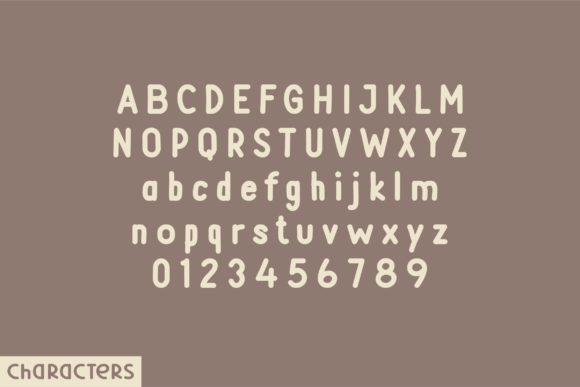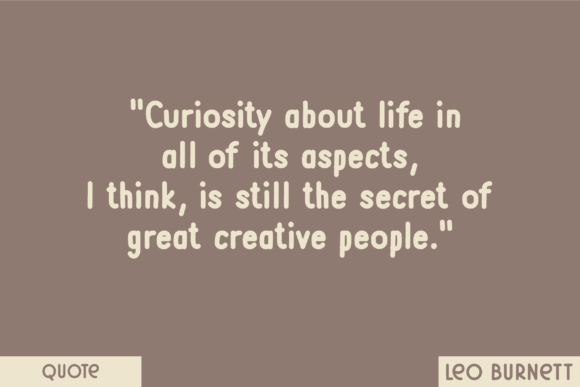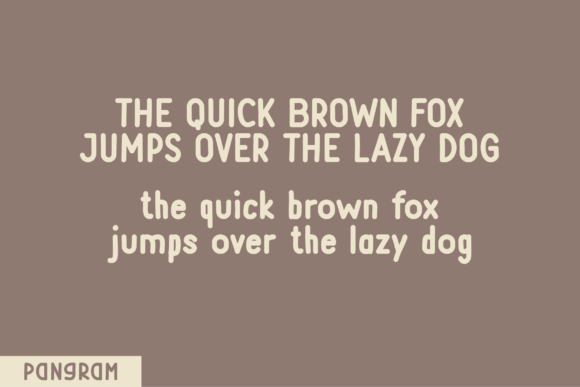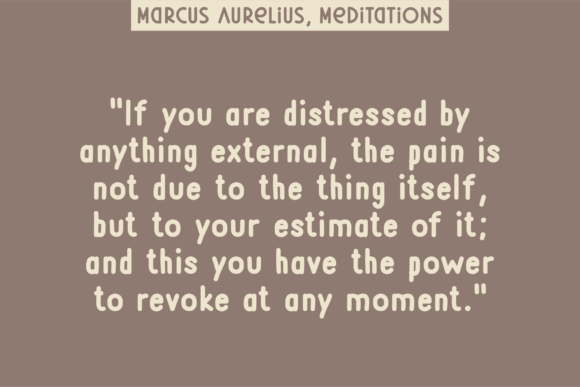
Introducing Cheeky Monkey Font: The Perfect Addition to Your Design Arsenal
Are you tired of using the same old fonts in your designs? Look no further! Cheeky Monkey Font is a bold and unique sans serif font that’s perfect for adding a classic touch to your quotes, notes, tees, logos, social media, and any other design that needs a bit of personality.
What is Cheeky Monkey Font?
Cheeky Monkey Font is a modern sans serif font that’s designed to make a statement. Its bold and unique style is perfect for designers and crafters who want to add a bit of whimsy to their work. The font is clean, crisp, and highly legible, making it perfect for use in a variety of design applications.
Key Features of Cheeky Monkey Font
- Bold and Unique Style: Cheeky Monkey Font has a bold and unique style that’s perfect for making a statement.
- Clean and Crisp Design: The font has a clean and crisp design that’s highly legible, even at small sizes.
- Sans Serif Style: Cheeky Monkey Font is a sans serif font, making it perfect for use in modern designs.
- Highly Versatile: The font is highly versatile and can be used in a variety of design applications, from quotes and notes to tees and logos.
Cheeky Monkey Font is perfect for designers and crafters who want to add a bit of personality to their work. The font is ideal for use in:
- Quotes and Notes: Add a bit of whimsy to your quotes and notes with Cheeky Monkey Font.
- T-Shirts and Merchandise: Use Cheeky Monkey Font to create eye-catching t-shirts and merchandise.
- Logos and Branding: Use the font to create unique and memorable logos and branding materials.
- Social Media Graphics: Add a bit of personality to your social media graphics with Cheeky Monkey Font.
Why Choose Cheeky Monkey Font?
There are many fonts to choose from, but Cheeky Monkey Font stands out from the crowd. Here are just a few reasons why:
- Unique Style: Cheeky Monkey Font has a unique style that’s sure to make your designs stand out.
- Highly Legible: The font is highly legible, even at small sizes, making it perfect for use in a variety of design applications.
Cheeky Monkey Font is a bold and unique sans serif font that’s perfect for designers and crafters who want to add a bit of personality to their work. With its clean and crisp design, highly legible style, and versatility, Cheeky Monkey Font is the perfect addition to your design arsenal. So why wait? Download Cheeky Monkey Font today and start creating amazing designs!